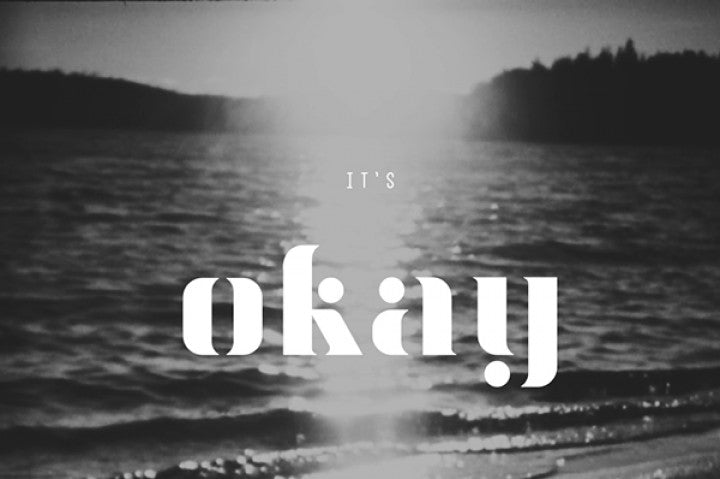
Featuring the impressive free aery font. Go give some love to The Hungry JPEG for creating this top-notch font. This is absolutely beautiful font so you can easily make world-class designs.